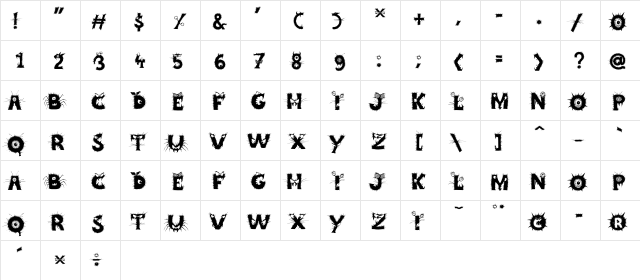
CCCreepyCrawly Regular
Design Context for CCCreepyCrawly Typeface
CCCreepyCrawly carries an unsettling edge — its distorted letterforms are built to unsettle, perfectly suited to horror, Halloween, and dark creative work.
Perfect for anything that needs to unsettle — game titles, horror branding, and macabre invitations.
Font Pairing: Pair with a clean neutral sans-serif for body copy to let CCCreepyCrawly's character lead without overwhelming the composition.
Pro Tip: Use CCCreepyCrawly at larger display sizes for maximum impact. Consider generous tracking to let the disturbing character of each letterform breathe.